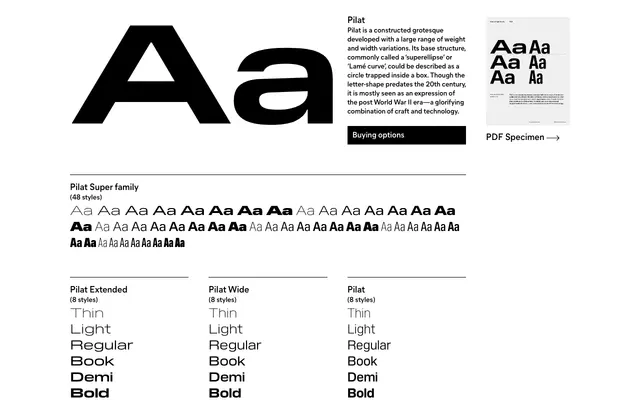
A 48-style constructed grotesque built on a superellipse structure, spanning six widths from Compressed to Extended across eight weights each.
Built around the superellipse or Lamé curve, a letterform geometry that traps a circle inside a box, Pilat draws on a post-war design sensibility that merges craft with industrial precision. The superfamily runs six width variants from Compressed through to Extended, each in eight weights from Thin to Black, giving 48 styles in total. Specimen copy referencing motorsport, aerospace and Italian industrial design reflects the typeface's intended register: confident, technical and period-flavoured.
A constructed grotesque built on a superellipse or Lamé curve structure, giving letterforms a geometry that sits between circular and rectangular. The post-war industrial aesthetic and systematic width range place it firmly in the geometric-grotesque tradition.